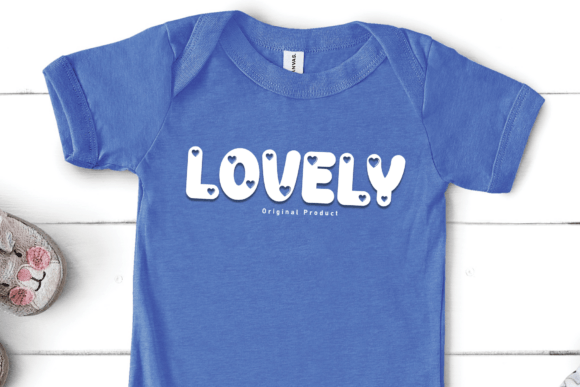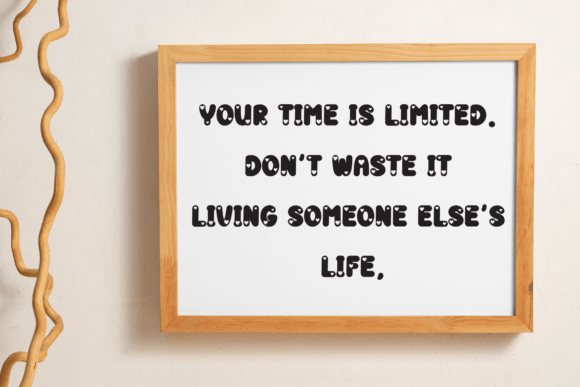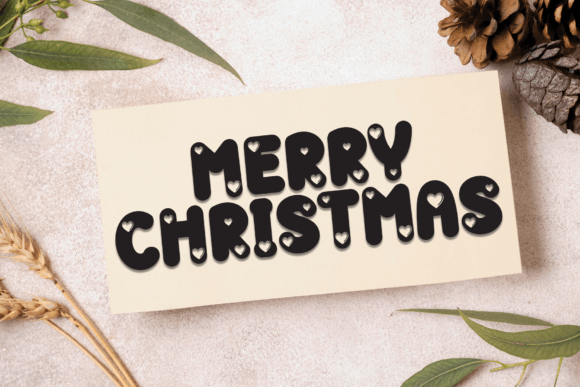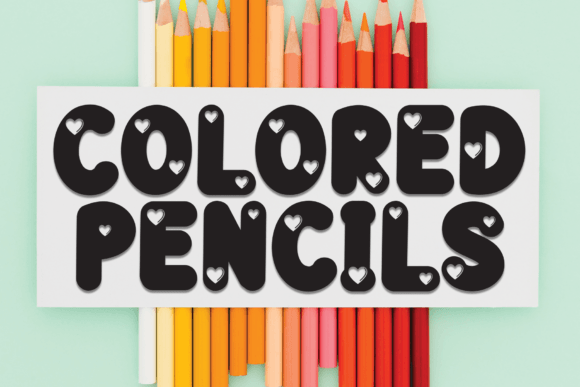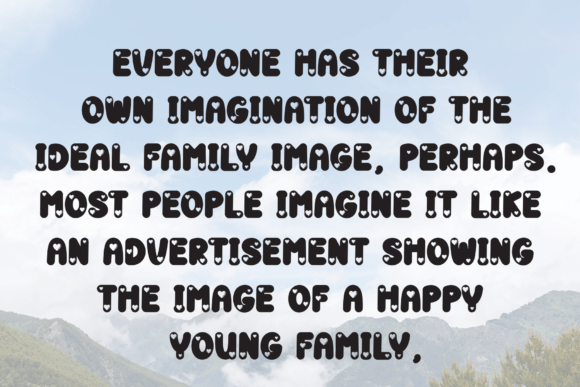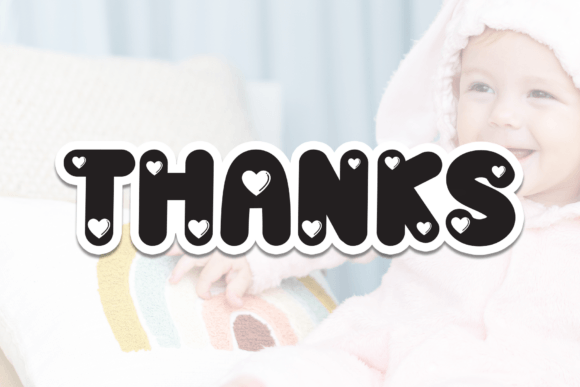
Introduction to Kids Baby Font
Kids Baby is a cute and charming display font.
Whimsical and a bit quirky, this font will brighten up each of your designs Add it confidently to your projects, and you will love the results.